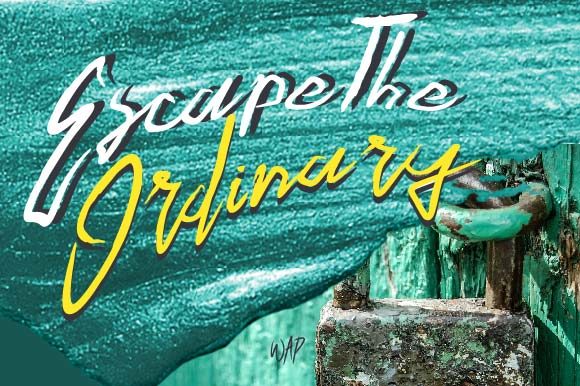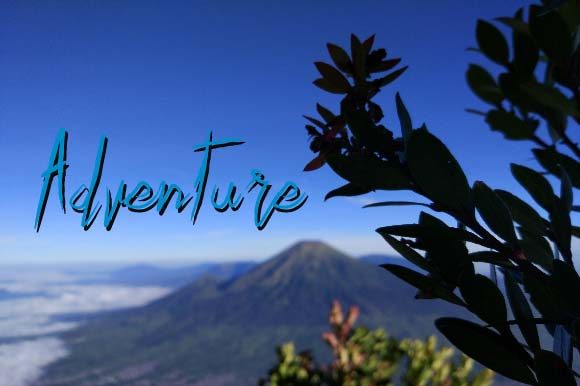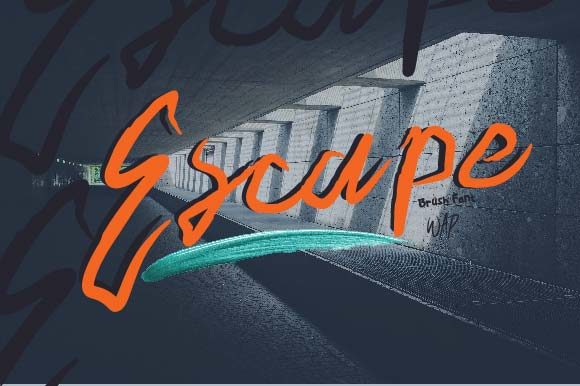
Introducing Escape Font: The Sweet and Friendly Handwritten Font for Your Creative Projects
Are you tired of using the same old fonts for your logos, branding, and DIY projects? Look no further! Escape Font is a unique and charming handwritten font that is sure to capture the attention of your audience. Designed with the help of a brush pen, this font exudes a sense of warmth and friendliness, making it perfect for a wide range of creative applications.
What Makes Escape Font So Special?
Escape Font is a sweet and friendly font that boasts a clean and quirky design. Its unique charm lies in its handcrafted feel, which gives it a personal and approachable vibe. This font is the brainchild of a meticulous design process that aimed to create a typeface that is both elegant and playful. Whether you’re working on a logo, social media graphics, or crafty DIY projects, Escape Font is sure to bring a touch of personality to your designs.
Key Features of Escape Font
- Handwritten with a Brush Pen: Escape Font is carefully crafted using a brush pen, giving it a distinctive and organic feel.
- Clean and Quirky Design: The font boasts a clean design with a hint of quirkiness, making it perfect for designs that require a touch of whimsy.
- Versatile: Escape Font can be used for a wide range of applications, including logos, branding, social media graphics, and DIY projects.
- Easy to Read: Despite its unique design, Escape Font is easy to read, making it perfect for body text and headlines.
Escape Font is a dream come true for designers and crafters who are looking for a font that can add a personal touch to their creations. Whether you’re working on a branding project, creating social media graphics, or crafting DIY projects, this font is sure to inspire your creativity. Its friendly and approachable design makes it perfect for:
- Logos and Branding: Create a unique and memorable brand identity with Escape Font.
- Social Media Graphics: Add a touch of personality to your social media graphics, including Instagram posts, Facebook graphics, and Twitter headers.
- DIY Projects: Use Escape Font to add a personal touch to your crafty DIY projects, such as handmade cards, scrapbooking, and journaling.
Tips for Using Escape Font Effectively
To get the most out of Escape Font, here are some tips to keep in mind:
- Pair it with Other Fonts: Experiment with pairing Escape Font with other fonts to create a unique and visually appealing design.
- Use it for Headlines and Body Text: Escape Font is easy to read, making it perfect for both headlines and body text.
- Experiment with Colors: Don’t be afraid to experiment with different colors to add depth and personality to your designs.
Escape Font is a unique and charming handwritten font that is sure to capture the attention of your audience. Its clean and quirky design makes it perfect for a wide range of creative applications, from logos and branding to social media graphics and DIY projects. With its friendly and approachable vibe, Escape Font is the perfect addition to your font collection. So why wait? Download Escape Font today and start creating stunning designs that showcase your personality and creativity!